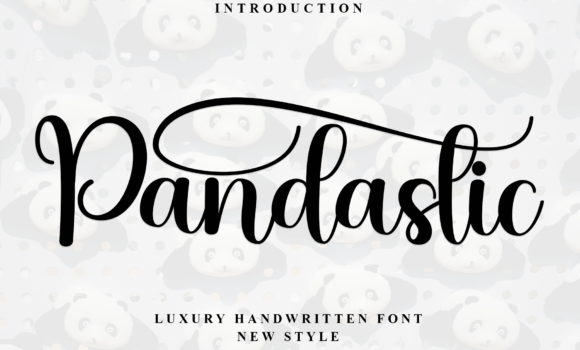
pandastic
Pandastic Font – Free Download Introduction to Pandastic Font Pandastic is a stylish font exuding elegance and charm. 📸 Preview Gallery 6 images 📌 Product Name Pandastic Font 👤 Author PiPi Creative 📂 Category Explore ⬇️ Download Pandastic Font FREE